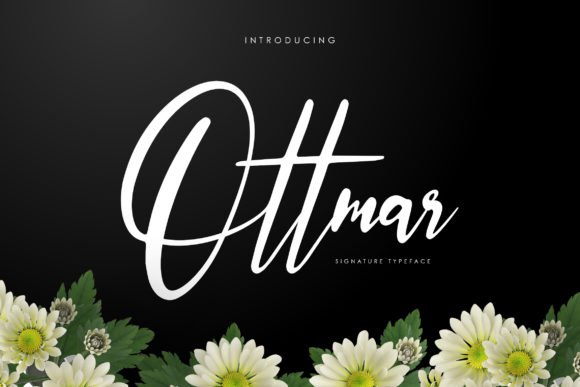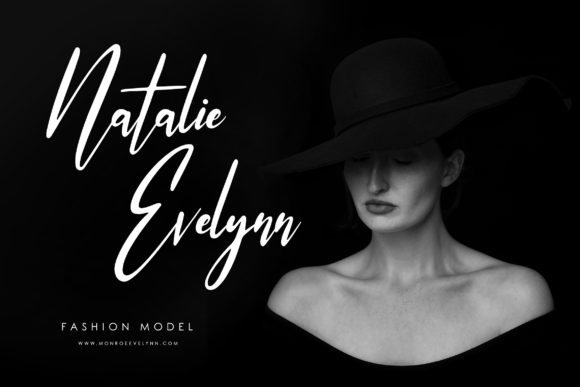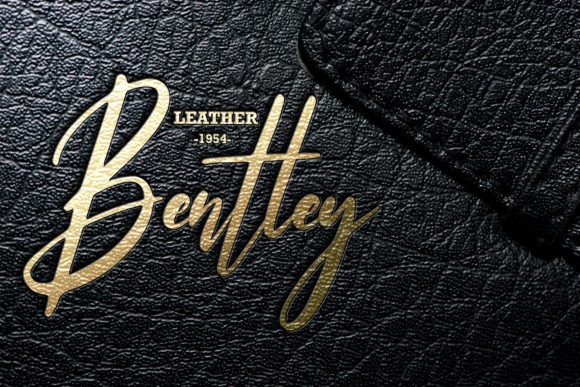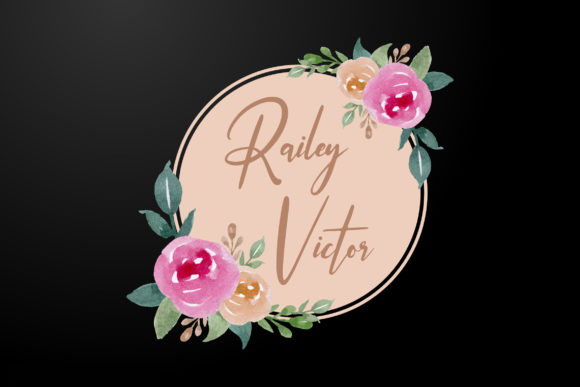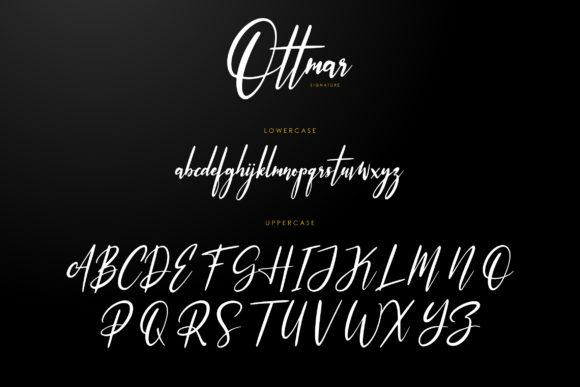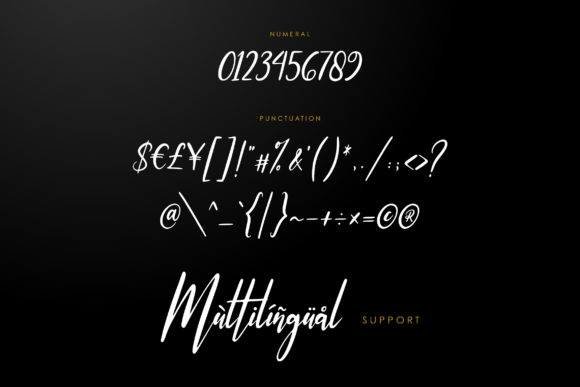
Ottmar Font
About Ottmar Font
Ottmar is a light and casual handwritten font with a unique feel. It will effortlessly add an authentic twist to any design project.